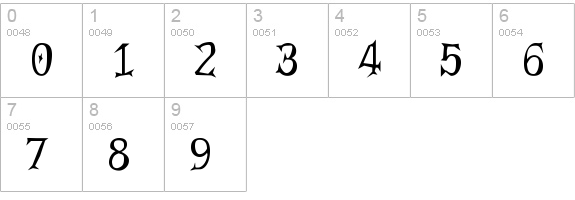
PriskaSerif-Regular is the standard, neutral variant in the PriskaSerif typeface family \xE2\x80\x94 well suited to general body text, paragraphs, and standard typographic work.
PriskaSerif-Regular is a versatile and elegant typeface that exudes sophistication and charm. Its timeless serifs and balanced letterforms make it ideal for a wide range of design projects, from editorial layouts to branding materials. The clarity and readability of PriskaSerif-Regular ensure that your message will always come across with clarity and professionalism. Best of all, PriskaSerif-Regular is available for free download at FontsMarket.com. This means you can easily access this high-quality font without any cost, making it a valuable addition to your design toolkit. Whether you're working on a personal project or a client's campaign, PriskaSerif-Regular is sure to elevate your designs with its classic and refined aesthetic. Download PriskaSerif-Regular today and unlock a world of creative possibilities.